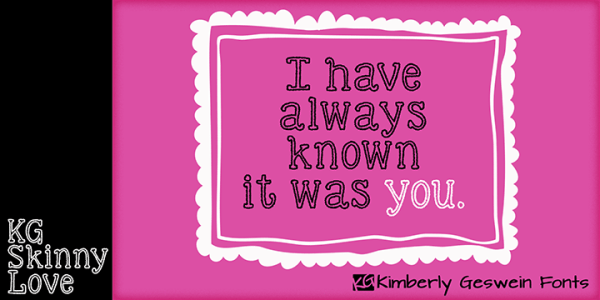
Font Frenzy: Chalkboard/Blackboard Fonts
We’ve pointed out casual font designer Kimberly Geswein before. She’s prolific, her fonts are usually quite complete (including accents and diacritical marks), and her fonts cost only $5 each for unlimited commercial use. We thank her for her generosity to the artistic community.
She’s recently begun releasing fonts that lend themselves pretty well to Chalkboard/Blackboard designs. Here are the names and links to a few of these fabulous fonts. Check out her site (linked above) and have fun!
kghardcandymed
kgskinnylovemed
kgsecondchancesmed